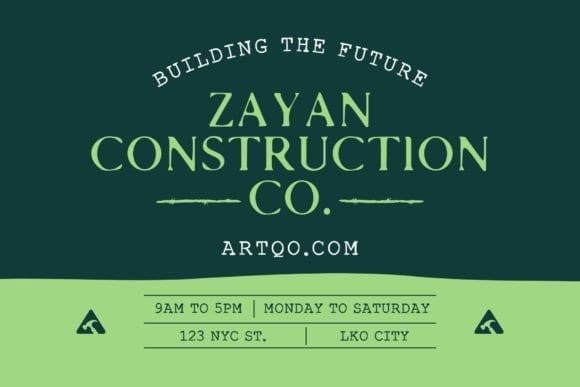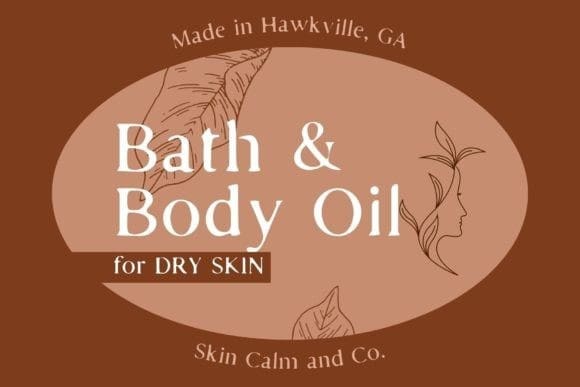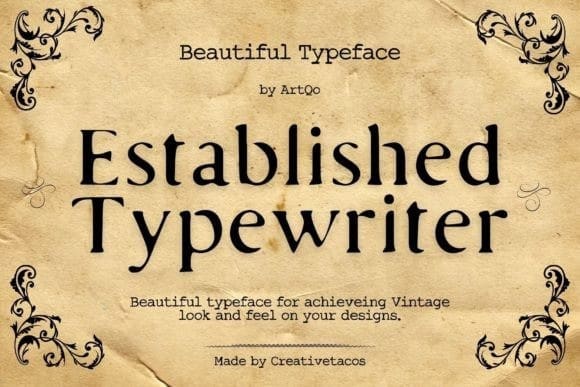
Established Typewriter Font
Established Typewriter Font is a vintage-inspired typeface designed to bring an authentic, classic feel to your work. This beautiful typeface exudes an old-fashioned charm, perfect for achieving a timeless look and feel. Whether you’re working on a historical novel cover, a vintage-themed invitation, or retro branding, EstablishedTypewriter offers a distinct style that will enhance your designs with a nostalgic feel.